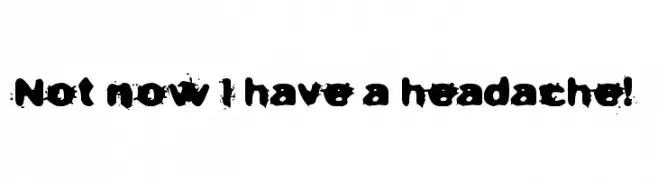
• IKHIOOGLA2
A bold, distressed font with a grunge aesthetic and ink imperfections.
• IKHIOOGLA3
A bold, distressed font with a vintage, industrial feel.
• finitimus iungo
A bold, hand-drawn font with an organic, rugged appearance.
• 215000E
A bold, grunge-style font with a cut-out, distressed appearance.
• Not now I have a headache!
A bold, grunge-style font with splattered, irregular edges.
• POLLUX9300
A bold, distressed font with a rugged, vintage appearance.
• POLLUX9301
A bold, distressed font with a rugged, hand-drawn appearance.
• POLLUX9200
A bold, distressed decorative font with a vintage, grunge effect.
• POLLUX9401
A bold, distressed font with a vintage, grunge texture.
• POLLUX9400
A bold, distressed font with a vintage, hand-drawn appearance.